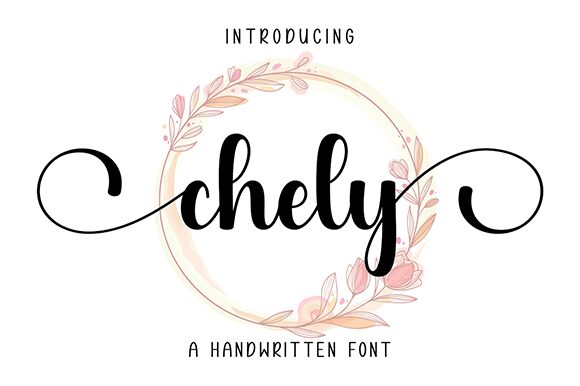
Chely
Chely font by Wahyu Studio is a condensed handwritten font that marries a contemporary casual aesthetic with elegant, flowing lines. Its expressive and friendly warmth makes it ideal for projects seeking a personal and approachable touch.